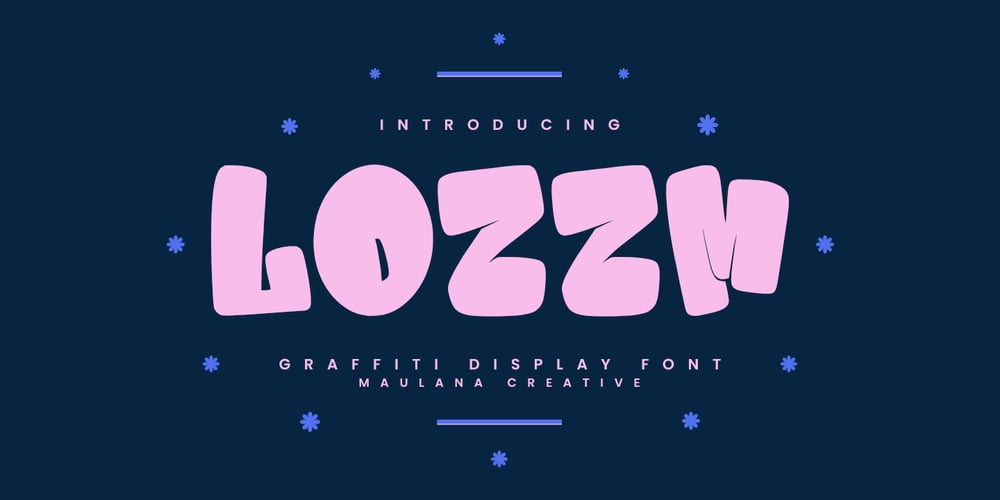
mc Lozzm Font Family was designed by Gilang Maulana and published by Maulana Creative. mc Lozzm contains 1 styles and family package options. Lozzm graffiti display typeface. Bold stroke, fun character with a bit of ligatures and alternates. To give you an extra creative work. Lozzm graffiti display typeface support multilingual more than 100+ language. This font is good for logo design, Social media, Movie Titles, Books Titles, a short text even a long text letter and good for your secondary text font with script or serif. Make a stunning work with Lozzm graffiti display typeface. Cheers, Maulana Creative